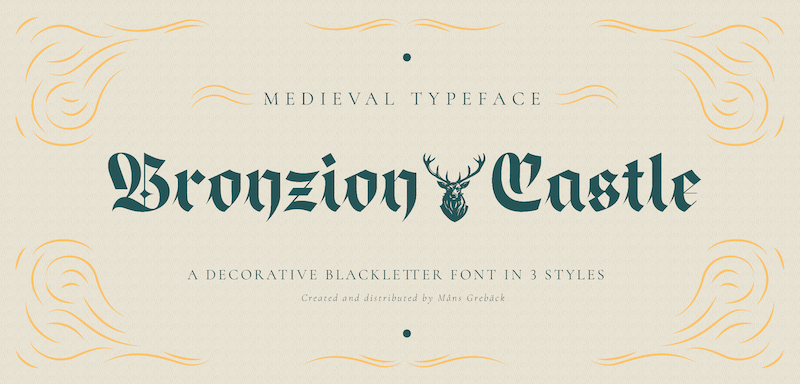
Preview and download Bronzion Castle Font. Created by Måns Grebäck in Gothic Modern styles with Free for personal use license.
NOTE: This font is for PERSONAL USE ONLY! To purchase a commercial license, visit: http://mn.sg/bronzion Bronzion Castle captures the ornamental beauty of middle ages manuscripts while catering to modern design needs. Use characters 🌲🌳🎠🐂🐅🐆🐈🐉🐎🐕🐦🐯🐲🐺👑👸🗡🤴🦁🦅🦇🦌🦎🦓🦖 to create heraldry-like logos and symbols. Example: Magic🐉Empire For questions, please visit www.mansgreback.com/faq |